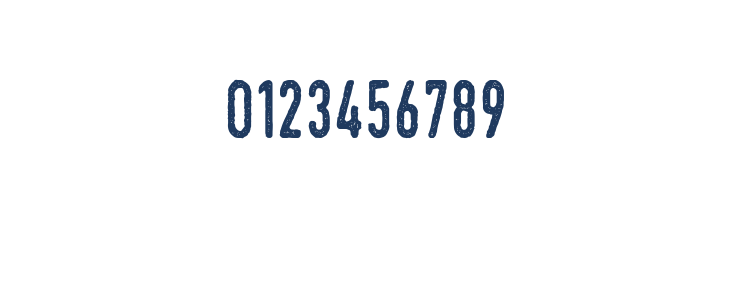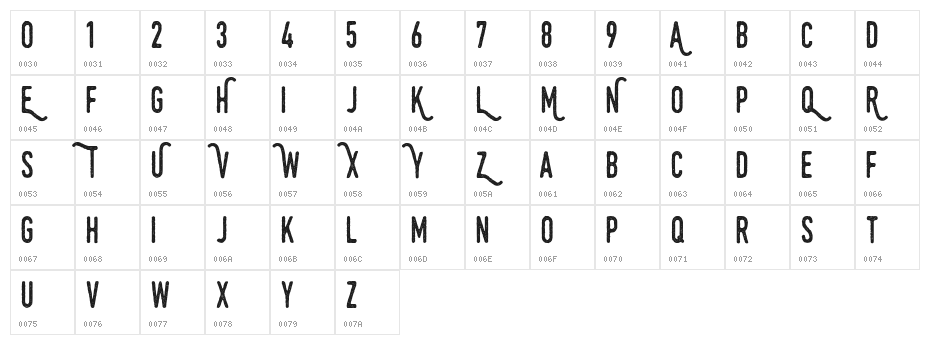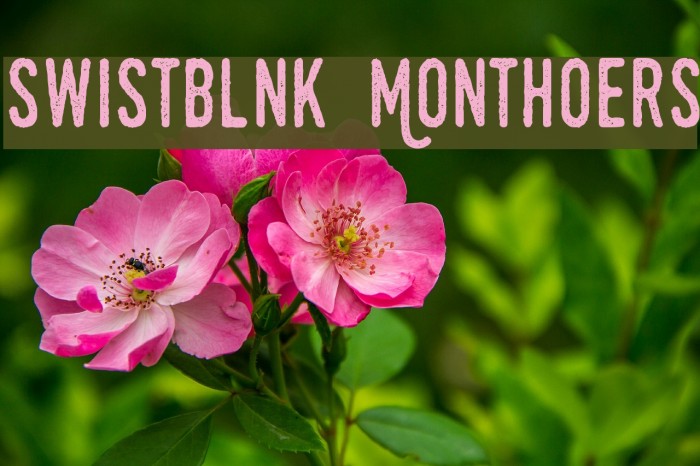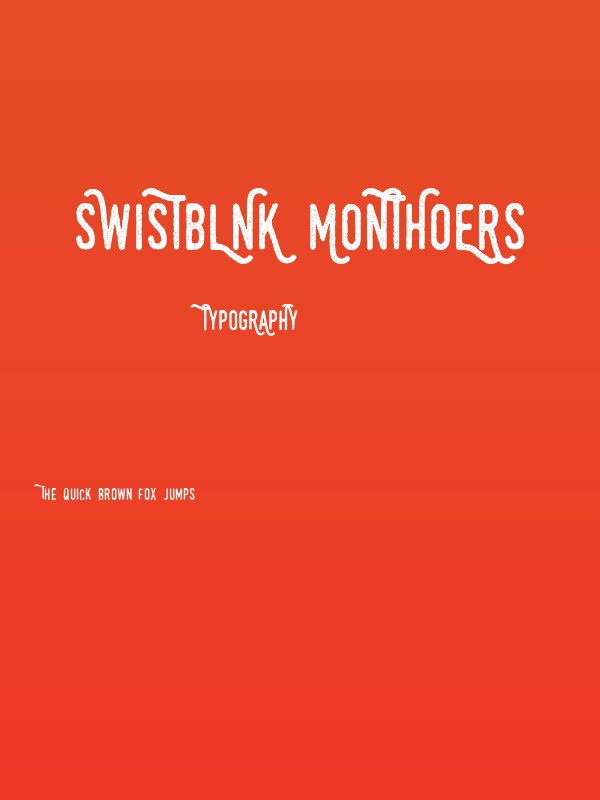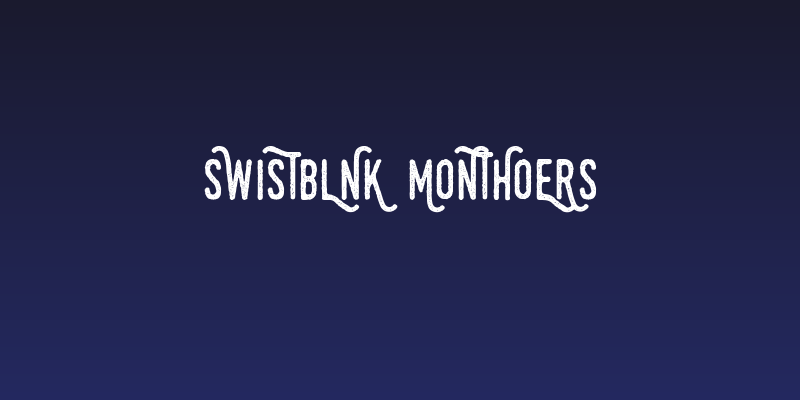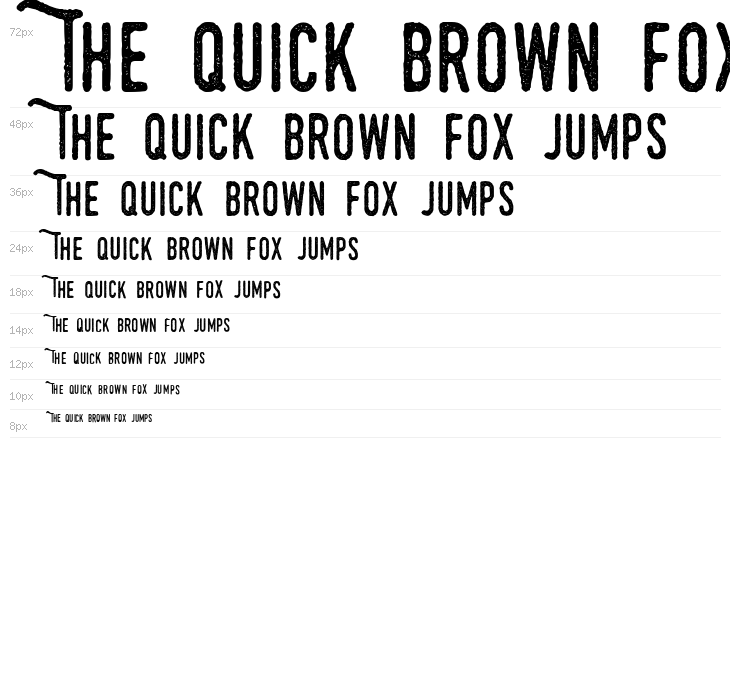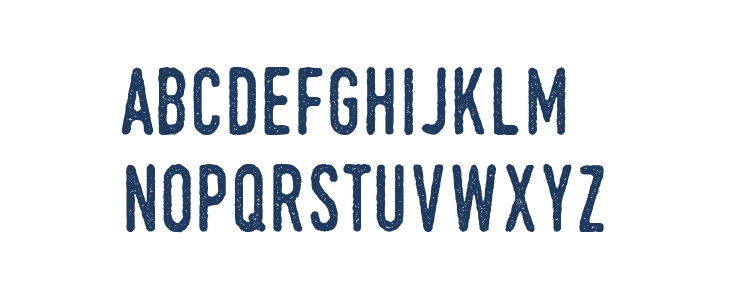
Swistblnk Monthoers Font
Swistblnk Monthoers Description
This font features a bold and textured appearance, with a distressed, vintage style that gives it a unique character. The uppercase letters are tall and slightly condensed, with rounded edges and a subtle rough texture that adds a handcrafted feel. The numbers and special characters maintain this aesthetic, ensuring consistency throughout. The font's design is reminiscent of old signage or posters, making it ideal for projects that require a touch of nostalgia or a rustic look.
| Proposed Projects | Ideal for vintage-themed posters, rustic branding, retro packaging, or any project seeking a handcrafted look. |